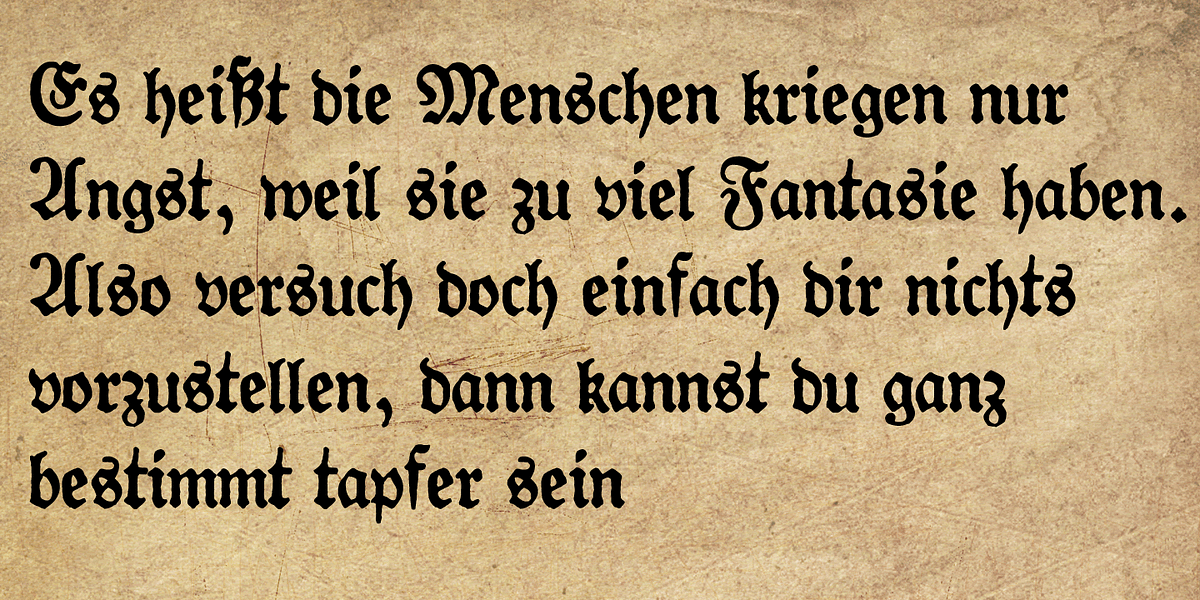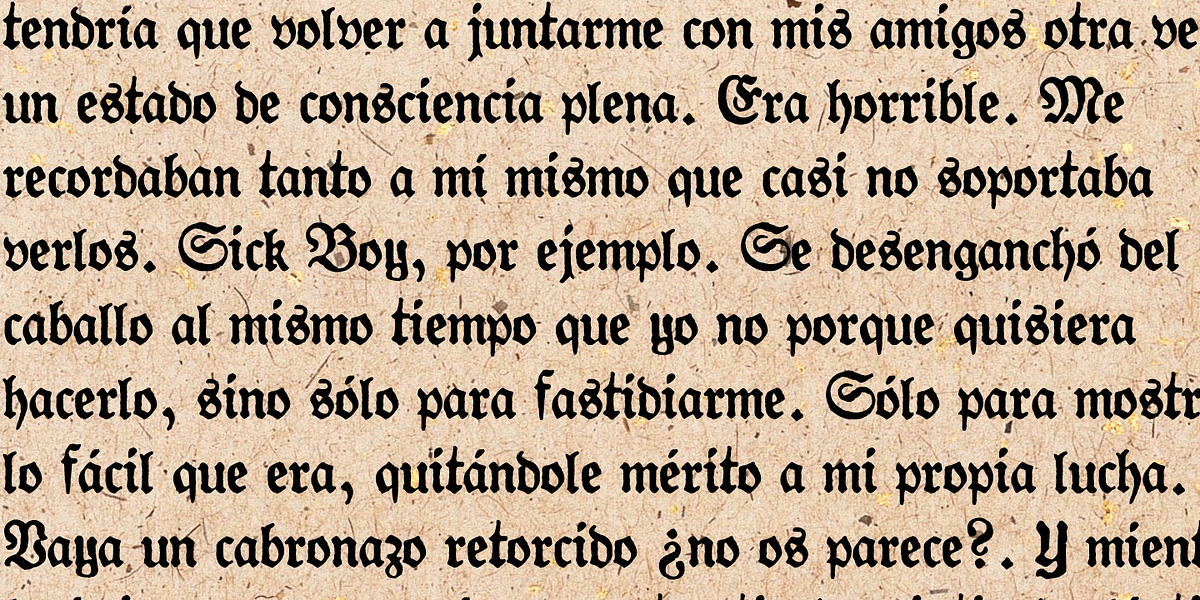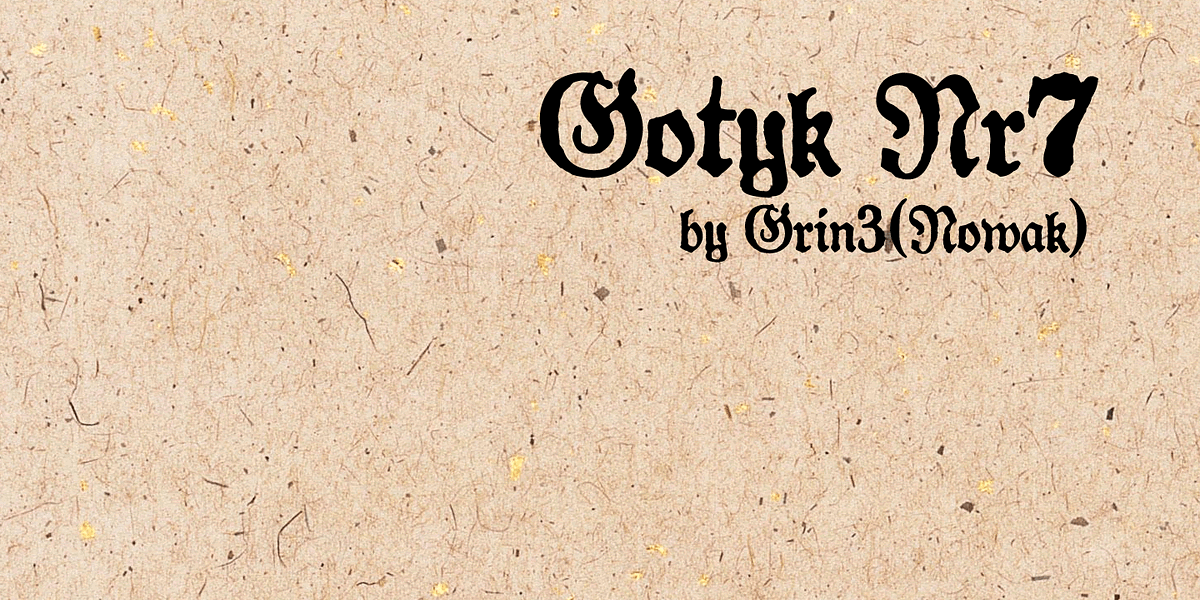
Gotyk nr7
Gotyk Nr7 is a redesigned version of the font Gotyk Poszarpany. It is a blackletter font with an 'old English' style and features rough edges. It supports Western, Central and Eastern European character sets, as well as Baltic and Turkish languages.